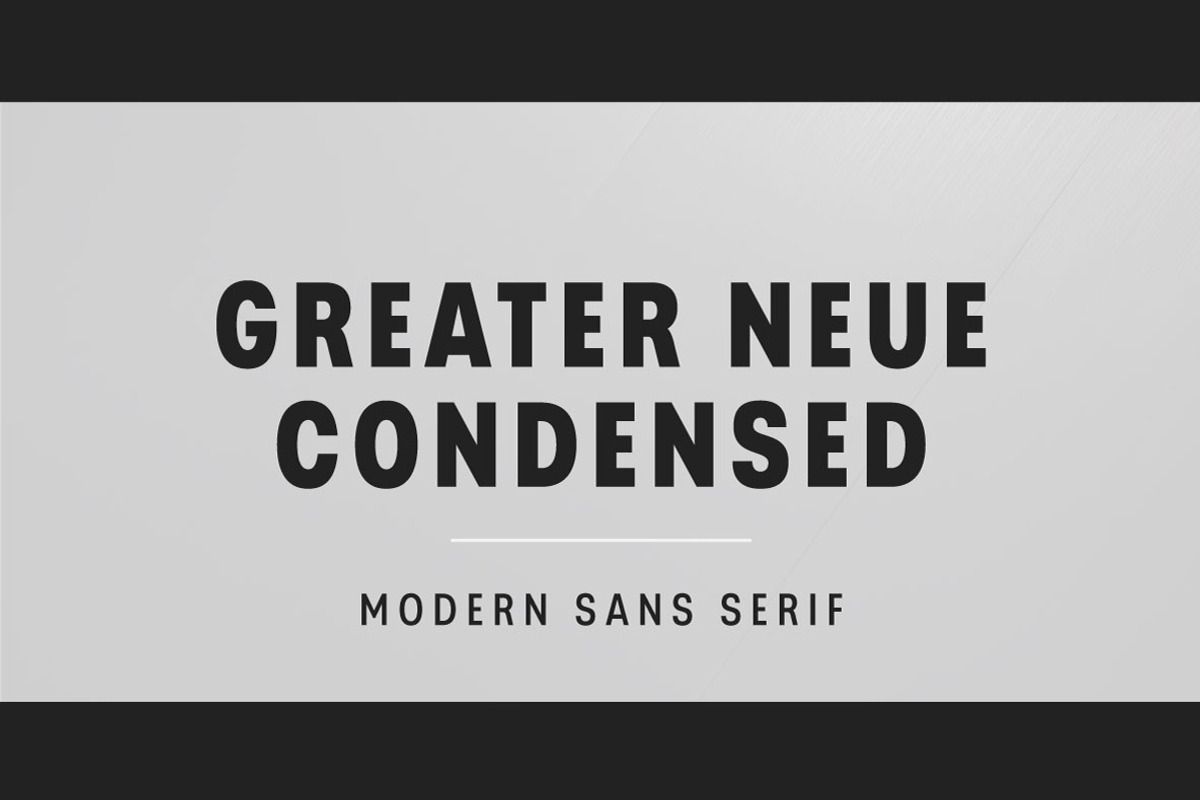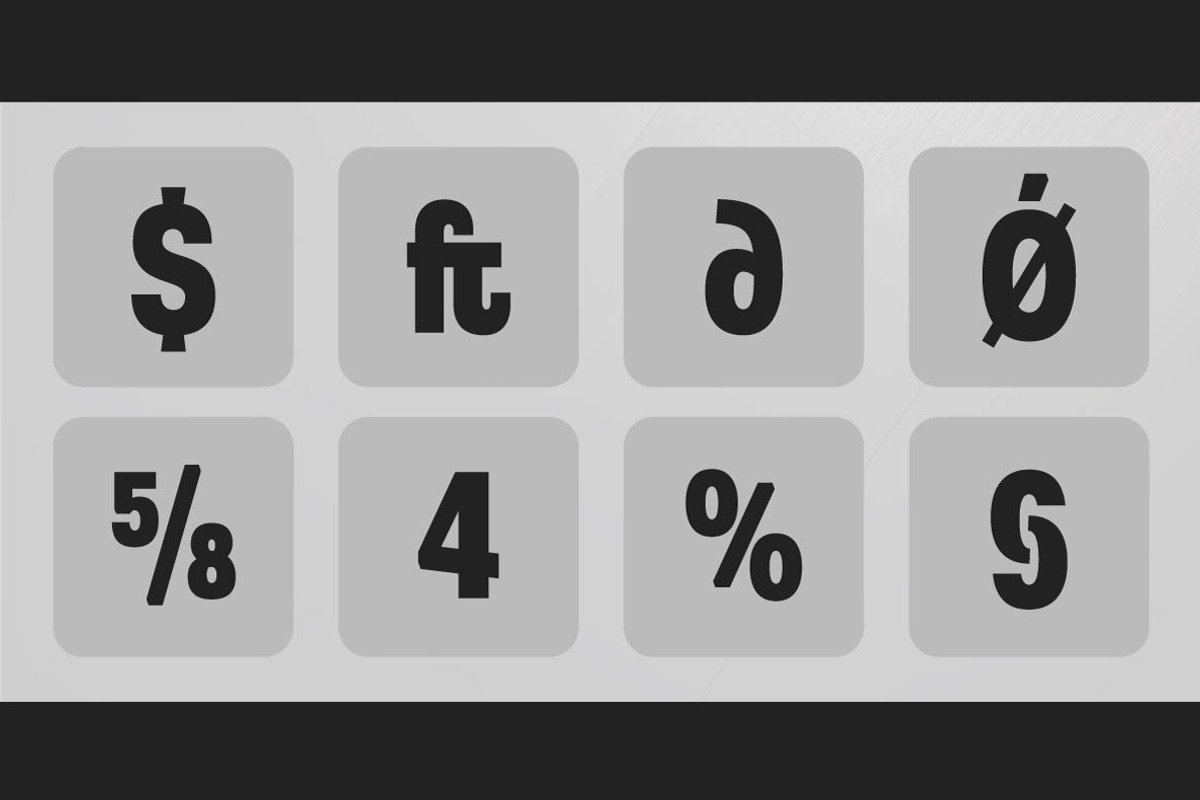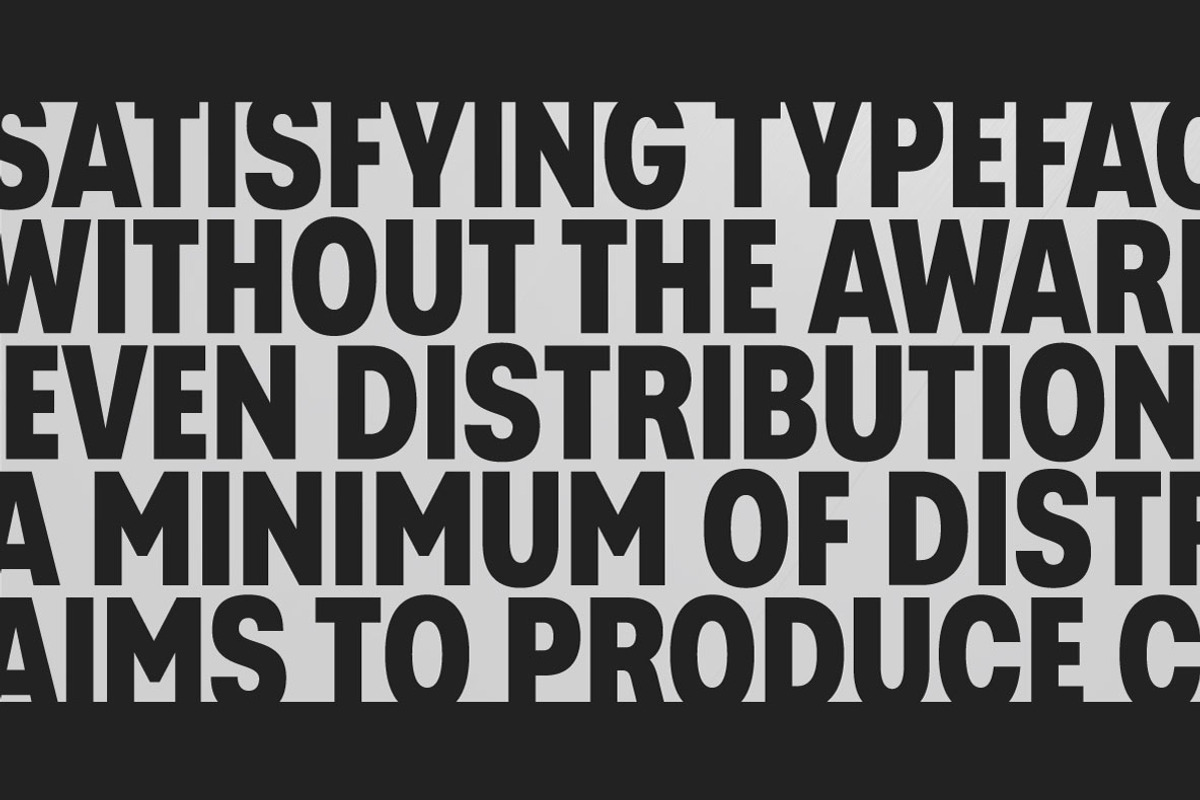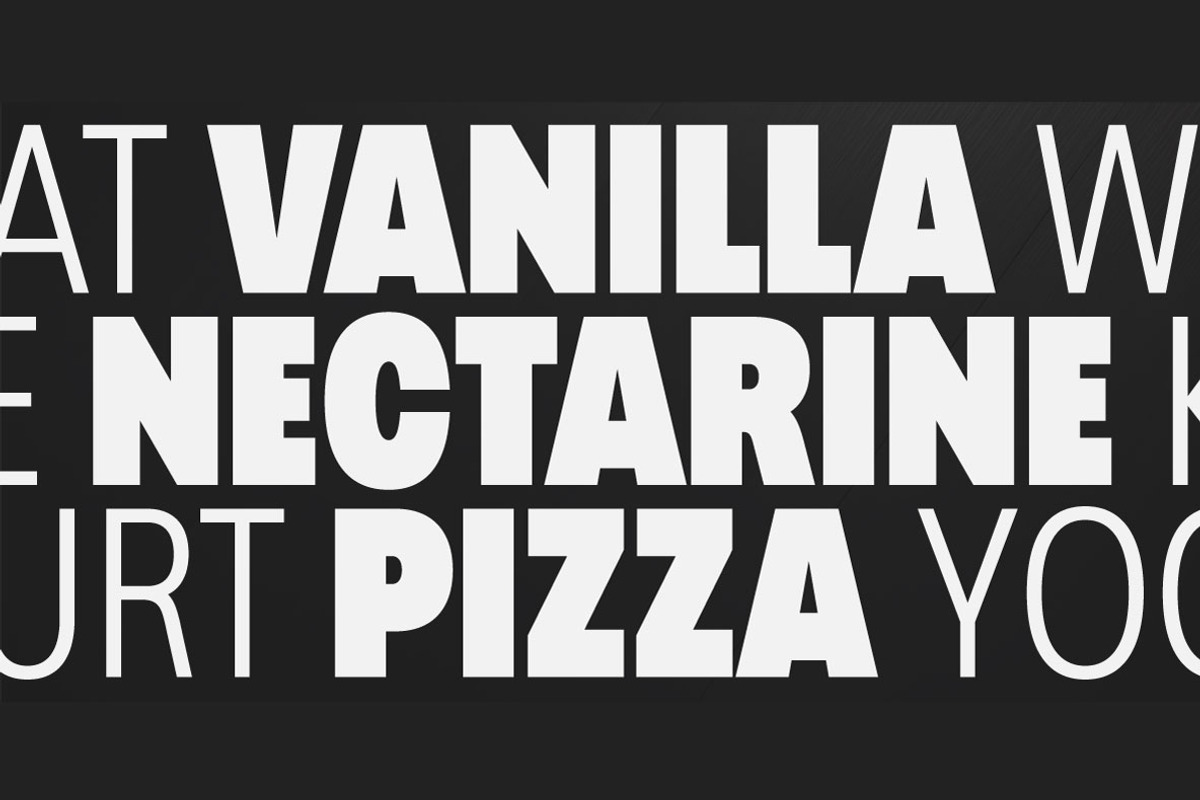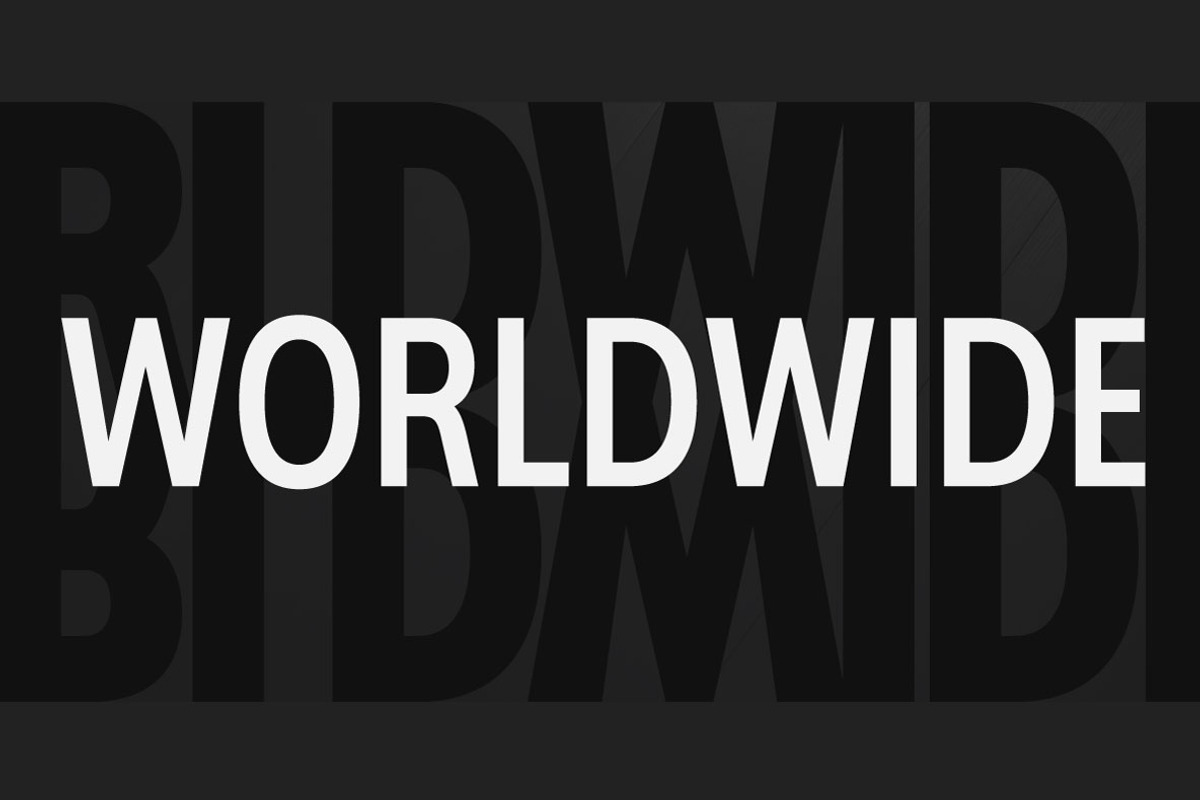
Greater Neue Condensed
The Greater Neue font family is a modern collection consisting of 80 weights, 40 uprights, and matching italics.
Condensed width consisting of 16 weights, 8 uprights, and matching italics. It is perfect for packaging, advertisements, headlines, and corporate identities. This font family is well-suited for graphic design and any type of display use.